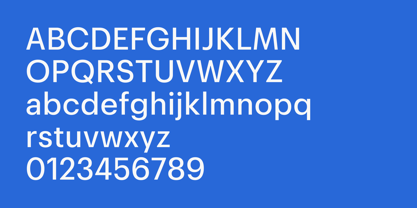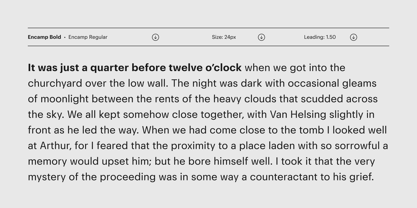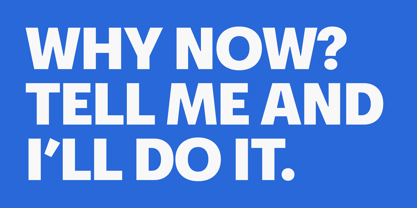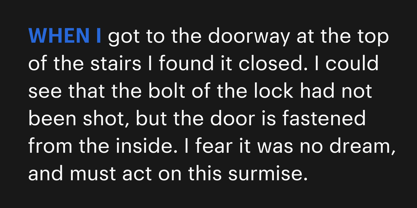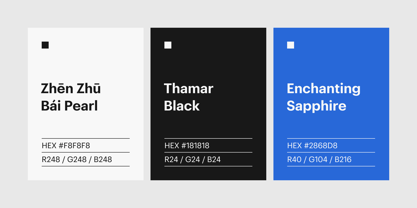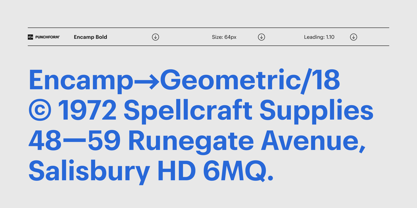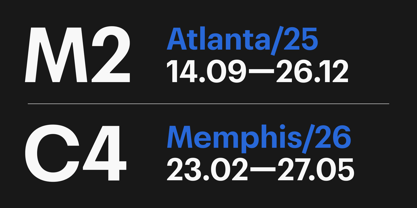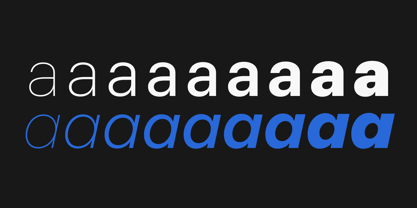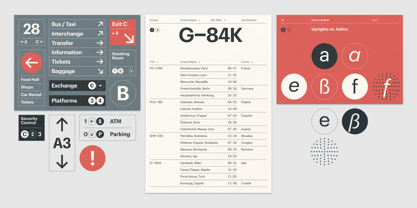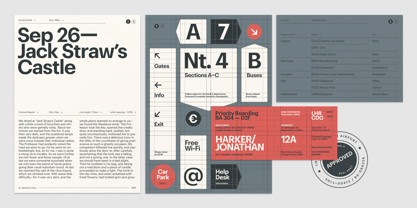
Encamp
by Punchform
The Encamp Font Family was designed by Ruls Do Paolo and published by Punchform. Encamp contains 18 styles and family package options.
Encamp is a geometric sans-serif designed by Ruls Do Paolo and published by Punchform in 2025. The family consists of 18 styles, which include nine upright weights from Thin to Black, along with matching italics. This variety helps create a clear typographic hierarchy across sizes. OpenType features include Stylistic Alternates, Case-Sensitive Forms, Tabular Figures, Superscripts and Subscripts, and Fractions. Encamp covers the Latin script and supports 128 languages.
Punchform is a type foundry started by type designer Ruls Do Paolo in 2020. The name combines “punch”—for impact—with “form”—for precision and craft. This balance sets the direction for everything we make. The goal is typefaces with real character, but built with discipline. Punchform fonts are designed to work universally. They stay neutral enough to fit a wide range of uses, but there’s a quiet sophistication in the details—just enough spark to help a project feel considered, not generic.